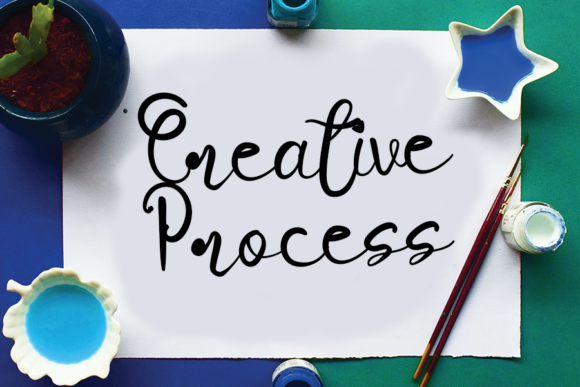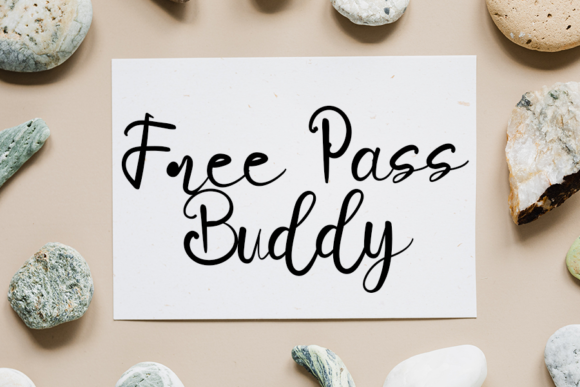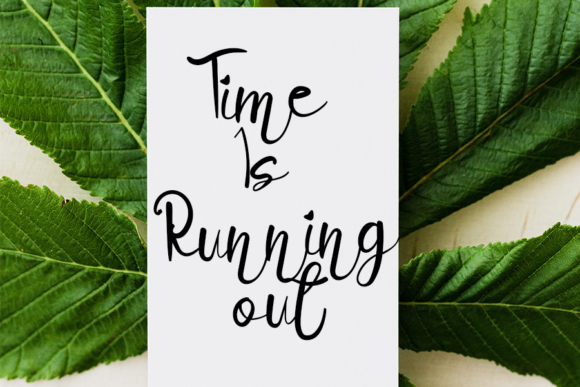
Coffee Bean Font: Add a Playful Touch to Your Designs
Are you looking for a font that can add a charming and playful touch to your designs? Look no further than the Coffee Bean font! This lovely handwritten font features characters that seem to dance along the baseline, making it perfect for creative projects that need a personal touch.
What is Coffee Bean Font?
Coffee Bean is a beautiful, handwritten font that is designed to bring a sense of playfulness and whimsy to your designs. With its charming characters and dancing baseline, this font is sure to make your projects stand out. Whether you’re a designer, crafter, or DIY enthusiast, Coffee Bean font is a great addition to your font collection.
Key Features of Coffee Bean Font
- Handwritten style: Coffee Bean font features a lovely handwritten style that is perfect for creating personal and unique designs.
- Playful characters: The characters in Coffee Bean font seem to dance along the baseline, adding a playful touch to your designs.
- Charming and whimsical: This font has a charming and whimsical feel that makes it perfect for creative projects.
- Easy to read: Despite its playful style, Coffee Bean font is easy to read and can be used for a variety of design projects.
How to Use Coffee Bean Font
Coffee Bean font is versatile and can be used for a variety of design projects, including:
- Digital designs: Use Coffee Bean font in your digital designs, such as social media graphics, blog posts, and website headers.
- Print designs: This font is perfect for print designs, such as flyers, brochures, and business cards.
- Crafting projects: Coffee Bean font can be used in crafting projects, such as handmade cards, scrapbooking, and DIY signs.
Benefits of Using Coffee Bean Font
Using Coffee Bean font in your designs can have several benefits, including:
- Unique and creative designs: This font can help you create unique and creative designs that stand out from the crowd.
- Personal touch: Coffee Bean font adds a personal touch to your designs, making them more relatable and engaging.
Tips for Using Coffee Bean Font
Here are some tips for using Coffee Bean font in your designs:
- Use it sparingly: Use Coffee Bean font sparingly to add a touch of playfulness to your designs.
- Pair it with other fonts: Pair Coffee Bean font with other fonts to create a unique and interesting design.
- Experiment with colors: Experiment with different colors to find the perfect combination for your design.
Coffee Bean font is a lovely handwritten font that can add a charming and playful touch to your designs. With its unique features and versatility, this font is perfect for designers, crafters, and DIY enthusiasts. Whether you’re creating digital designs, print designs, or crafting projects, Coffee Bean font is a great addition to your font collection.
Get Creative with Coffee Bean Font
So why not give Coffee Bean font a try? With its easy-to-use design and charming characters, this font is sure to bring a smile to your face and a touch of whimsy to your designs. Get creative and have fun with Coffee Bean font!